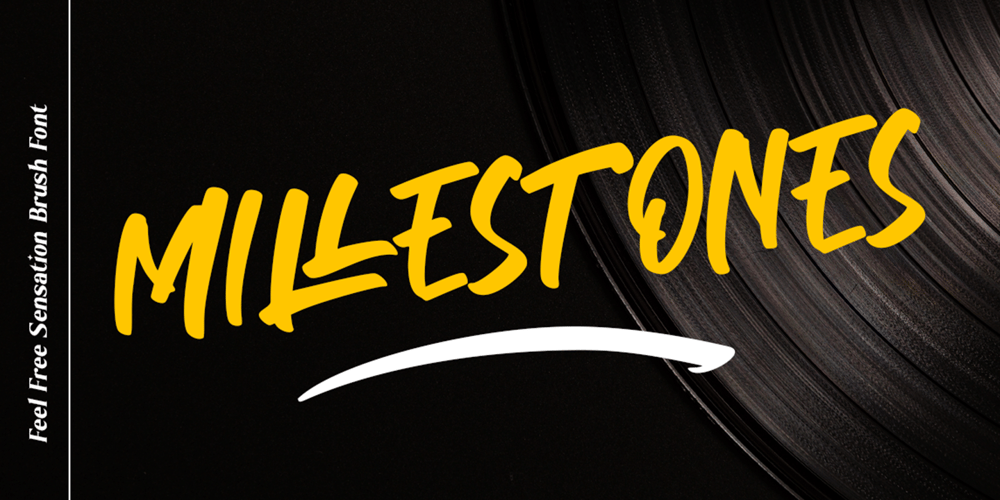
Millestones Font Family was designed by Sarwo Edhi Prayitno and published by Haksen. Millestones contains 1 styles and family package options. MILLESTONES Brush FontIntroducing “MILLESTONES” Brush Font!If you are needing a touch of horror sensation for your designs, this font was created for you!What’s Included: All Set Character in Uppercase & Lowercase style Number and Punctuation Support Language Ligatures All above mentioned available in (OTF)This font works best in a program that supports OpenType features such as Adobe Indesign, Adobe Illustrator CC and CS, or Adobe Photoshop CC and CS also CorelDrawMore Questions? Here are some (potential) answers! Do not to resell this font in any way. Multilingual Support is included for Western European Languages Cheers!